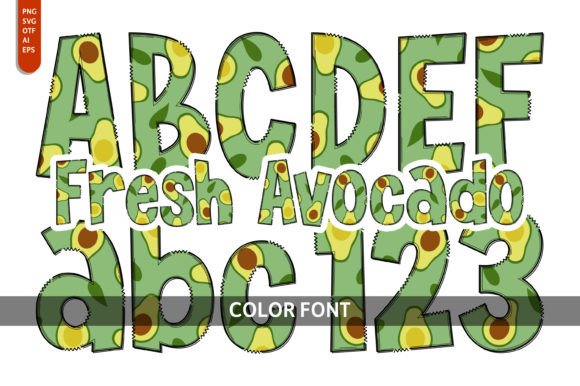
Dive into a world of whimsy and creativity with the captivating Fresh Avocado Font, a colorful creation from Imagination Switch that will transform your designs into masterpieces. This playful font is a visual delight, injecting a sense of joy and wonder into every project it graces.
Picture the radiant smile of a child as they embark on a whimsical journey through the pages of a storybook, their eyes dancing across the playful curves and vibrant hues of the Fresh Avocado Font. Each letter is a burst of color, a splash of imagination, inviting readers to lose themselves in a realm of enchantment.
Imagine the excitement of a party invitation adorned with the Fresh Avocado Font, its exuberant charm promising a celebration filled with laughter, music, and unforgettable memories. The font's cheerful personality radiates from every stroke, creating an atmosphere of anticipation and merriment that will have guests eagerly counting down the days until the grand event.
Discover the allure of the Fresh Avocado Font in greeting cards, where heartfelt messages take on a new dimension of warmth and sincerity. The font's vibrant palette adds a touch of cheer to expressions of love, friendship, and gratitude, making each card a cherished keepsake that will be cherished for years to come.
With the Fresh Avocado Font as your creative companion, the possibilities are endless. Unleash your imagination and explore the boundless realm of design, crafting projects that resonate with joy, creativity, and a sprinkle of whimsy. This font is not just a collection of letters; it's a portal to a world where imagination thrives and dreams come to life.